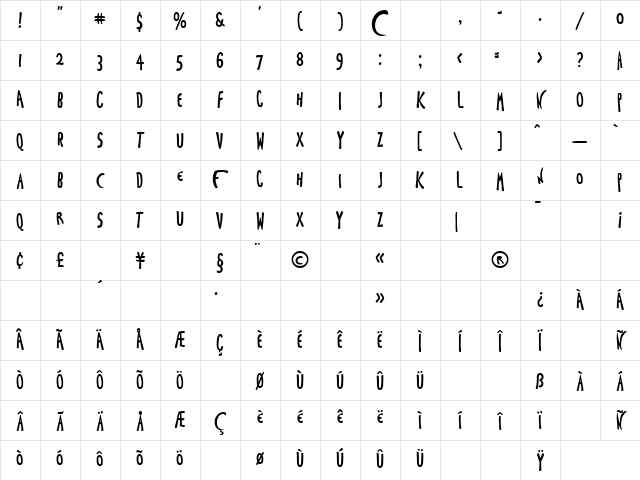
TLPierreBonnard Regular
Design Context for TLPierreBonnard
TLPierreBonnard is a composed and adaptable typeface that performs quietly and consistently across a wide range of design contexts.
Pro Tip: Use TLPierreBonnard in both headline and body roles to test its range before committing to a single application.